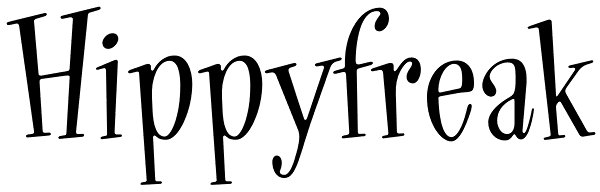
Hippyfreak
Hippyfreak was created by manipulating my Beatnik font. I stretched and distorted the outlines until I got an interesting effect reminiscent of the Hippie generation. It has a cool and hip rhythm and movement. Great to use for those funky headlines...